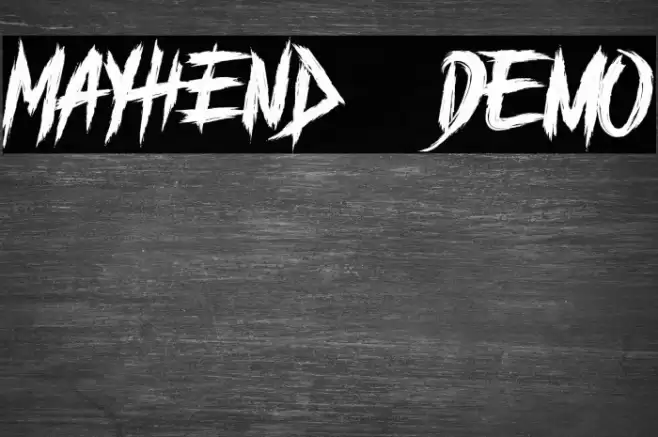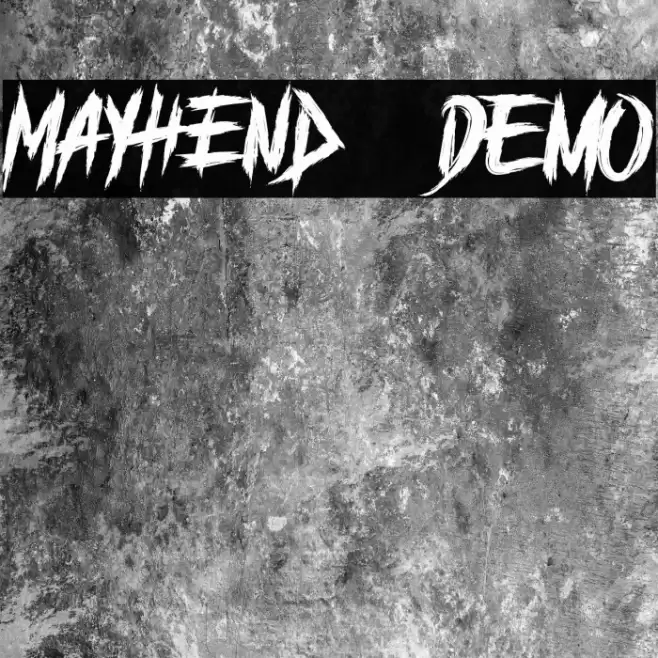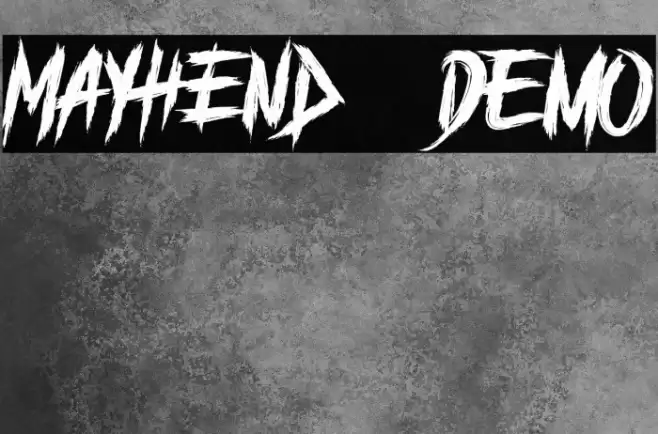
MAYHEND - demo Font
MAYHEND - demo Description
This font features a bold, aggressive style with sharp, jagged edges that give it a dynamic and energetic appearance. The strokes are irregular, creating a sense of movement and intensity. The uppercase and lowercase letters maintain a consistent style, with a slightly chaotic yet controlled form. The numbers and special characters follow the same design principles, ensuring a cohesive look across all elements. This font is highly decorative, making it suitable for projects that require a strong visual impact.
A bold, jagged font with an aggressive, energetic style from Uncategorized fonts.
- Proposed Projects: Ideal for music album covers, extreme sports branding, posters, and any design needing a bold statement.
- Character Spacing: Tight
- Overall Style: Modern, Energetic